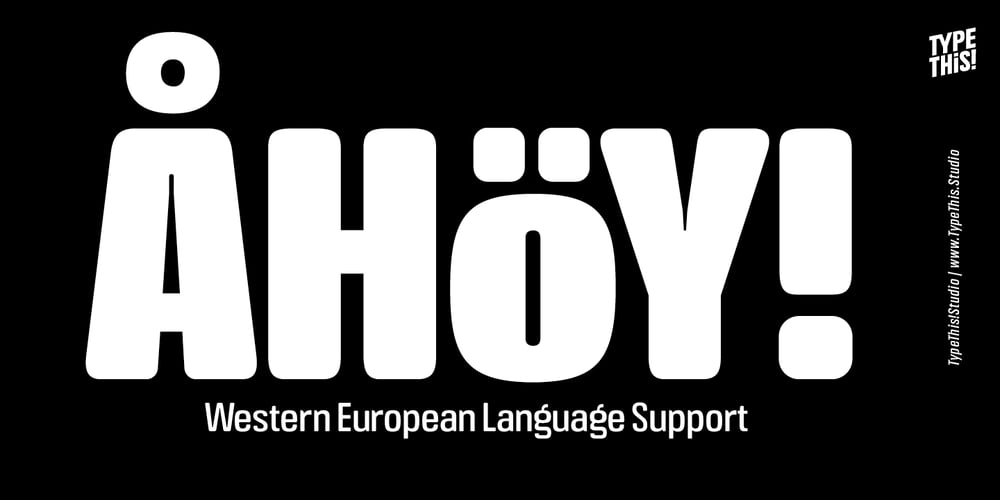
Crossfit Core Font Family was designed by Anita Jürgeleit and published by TypeThis!Studio. Crossfit Core contains 5 styles and family package options. Crossfit is a new headline font for great sizes, such as big movie posters, advertising or editorials. Matching topics might be adventures, sports, strong nature and all kind of challenging life events. Its bold stability transforms your creation into a non questionable design. It is bold, clear and also friendly thanks to its rounded corners. www.typethis.studioThank you for checking out Crossfit font family. If you have any questions, please send us an email: hello@typethis.studio